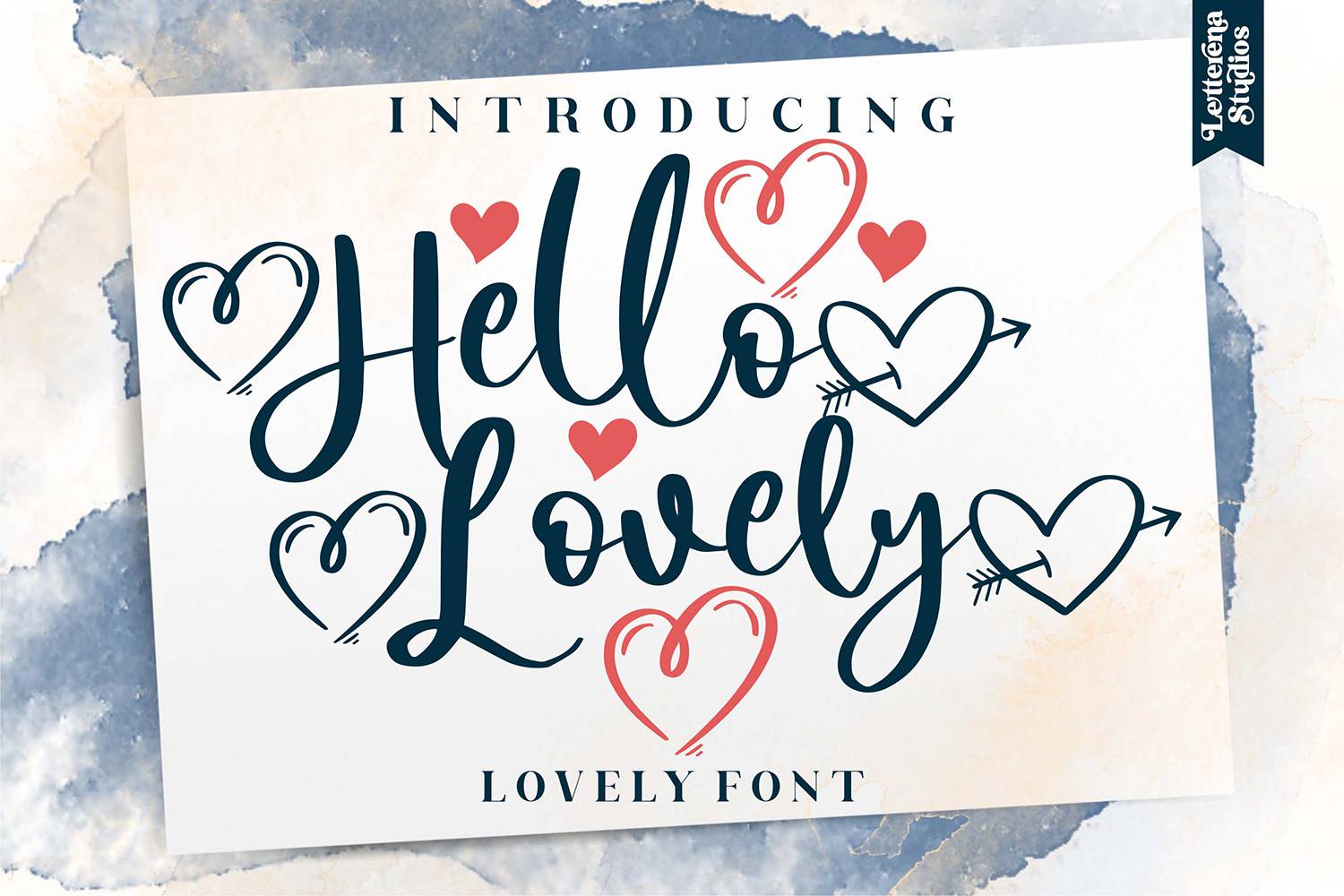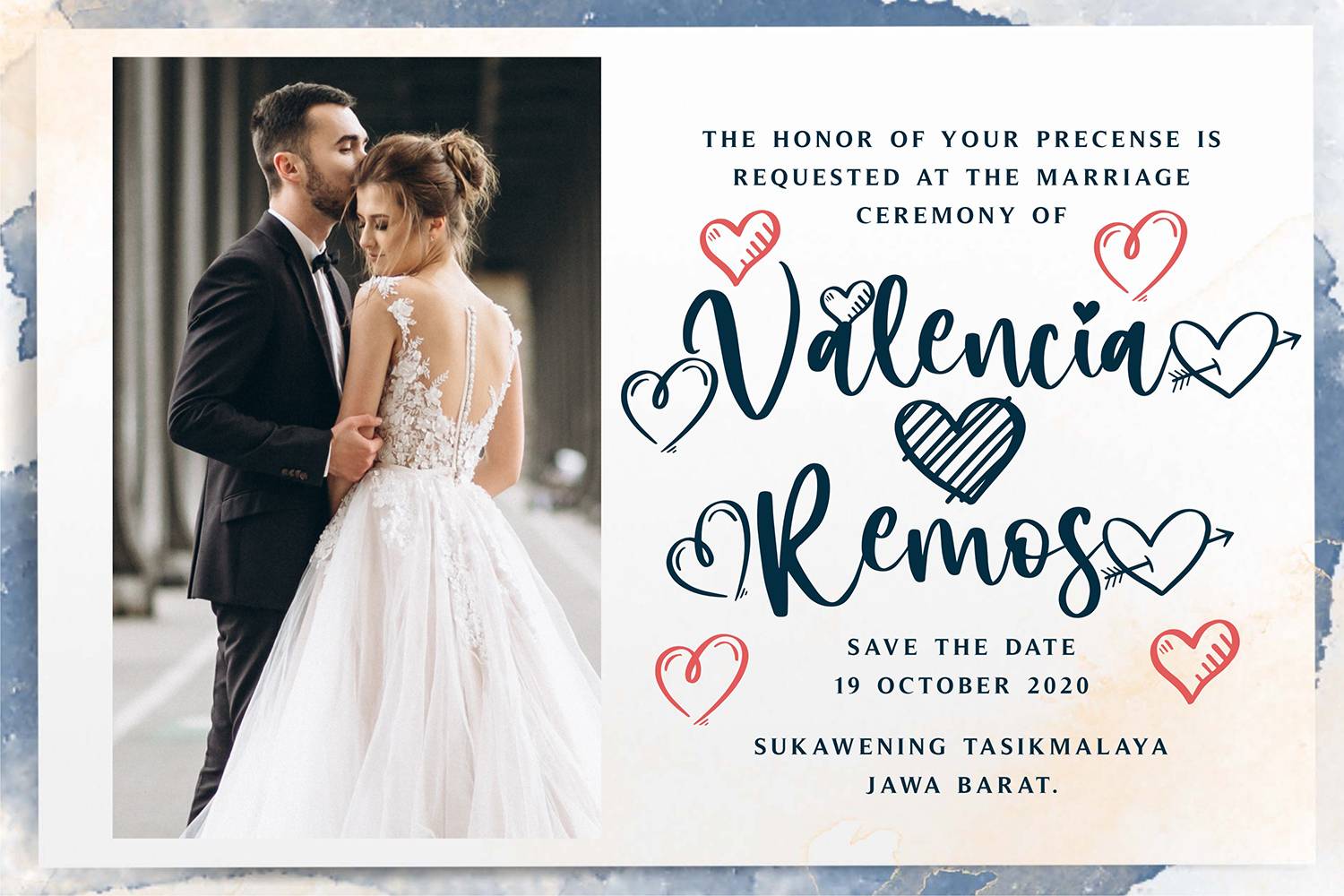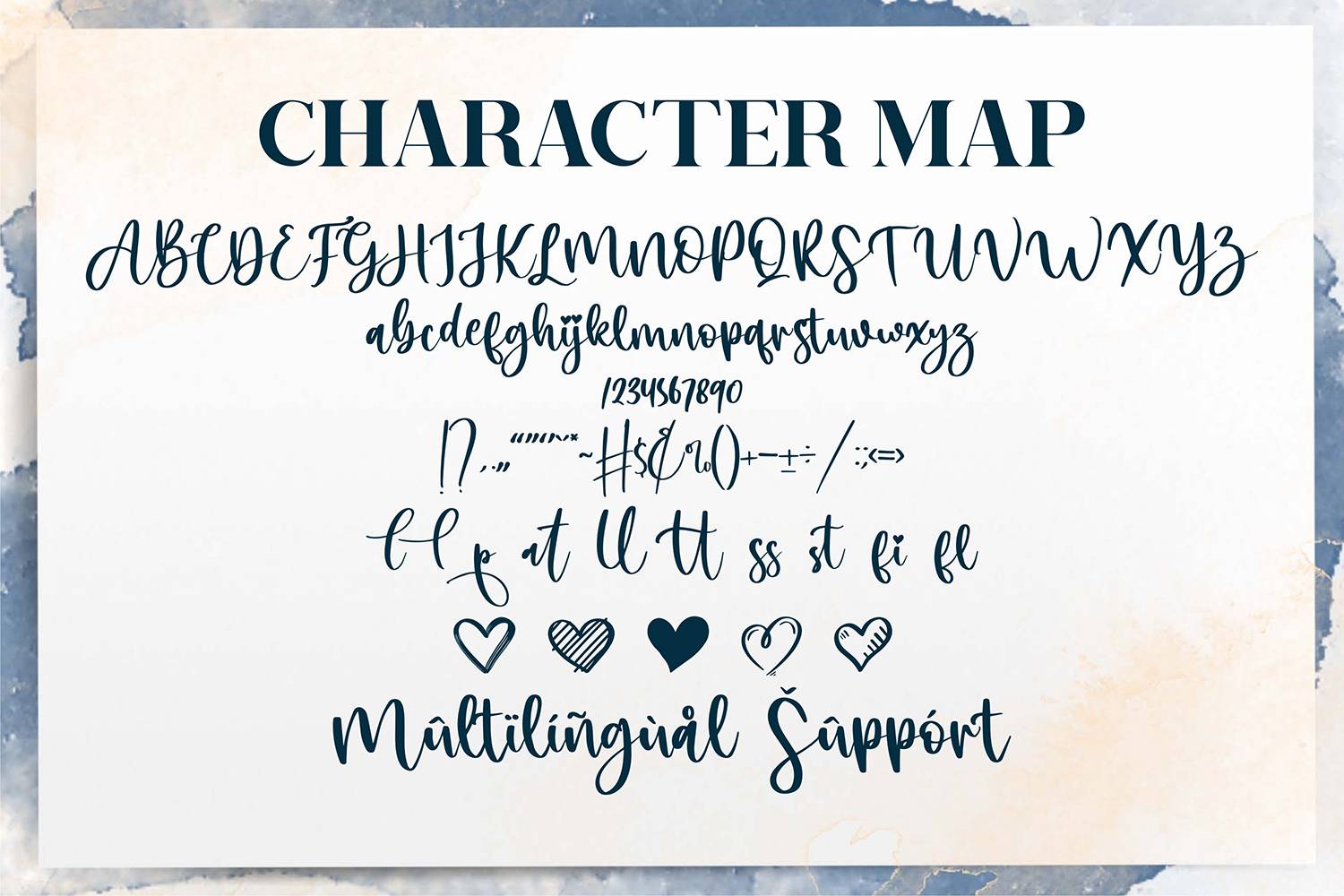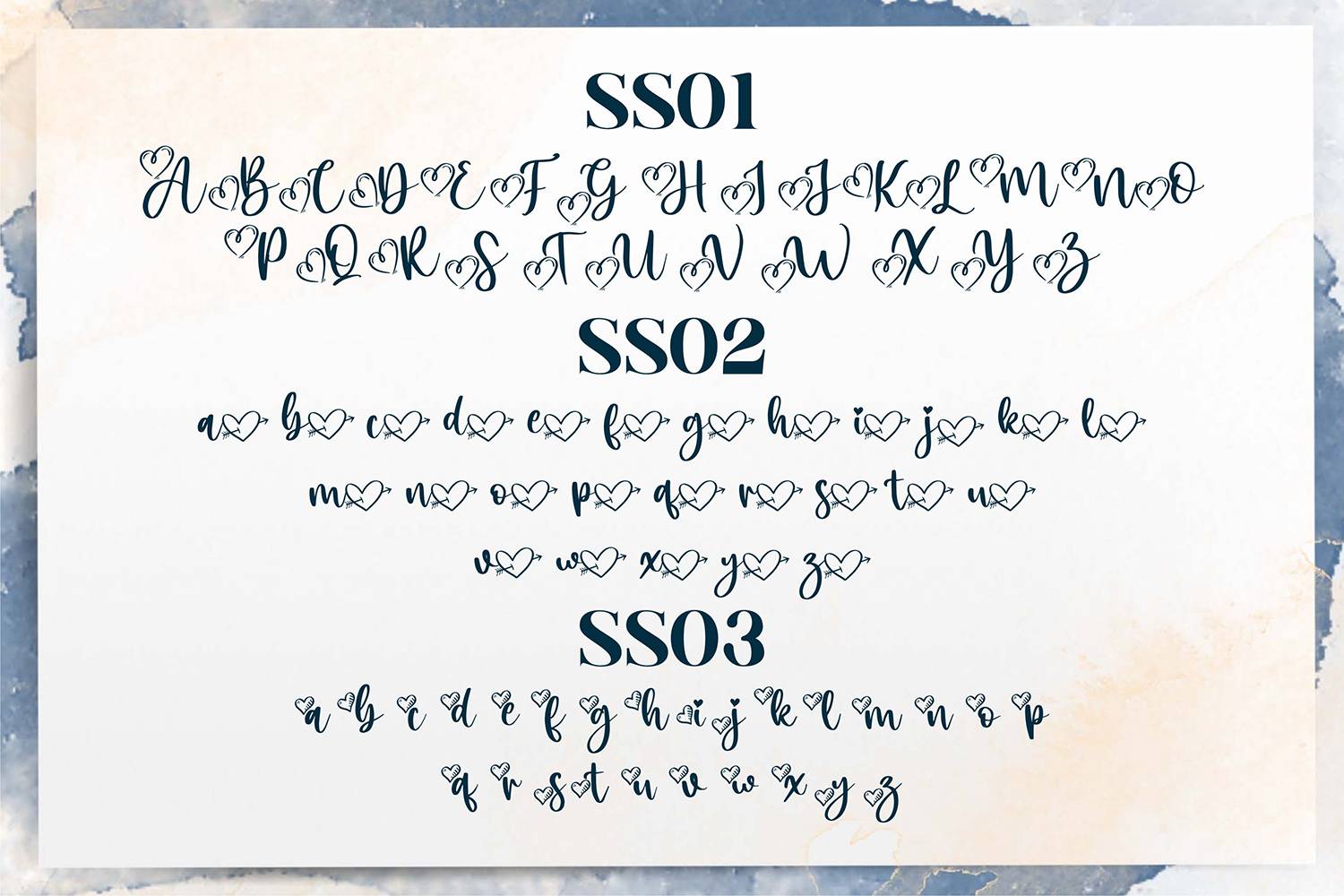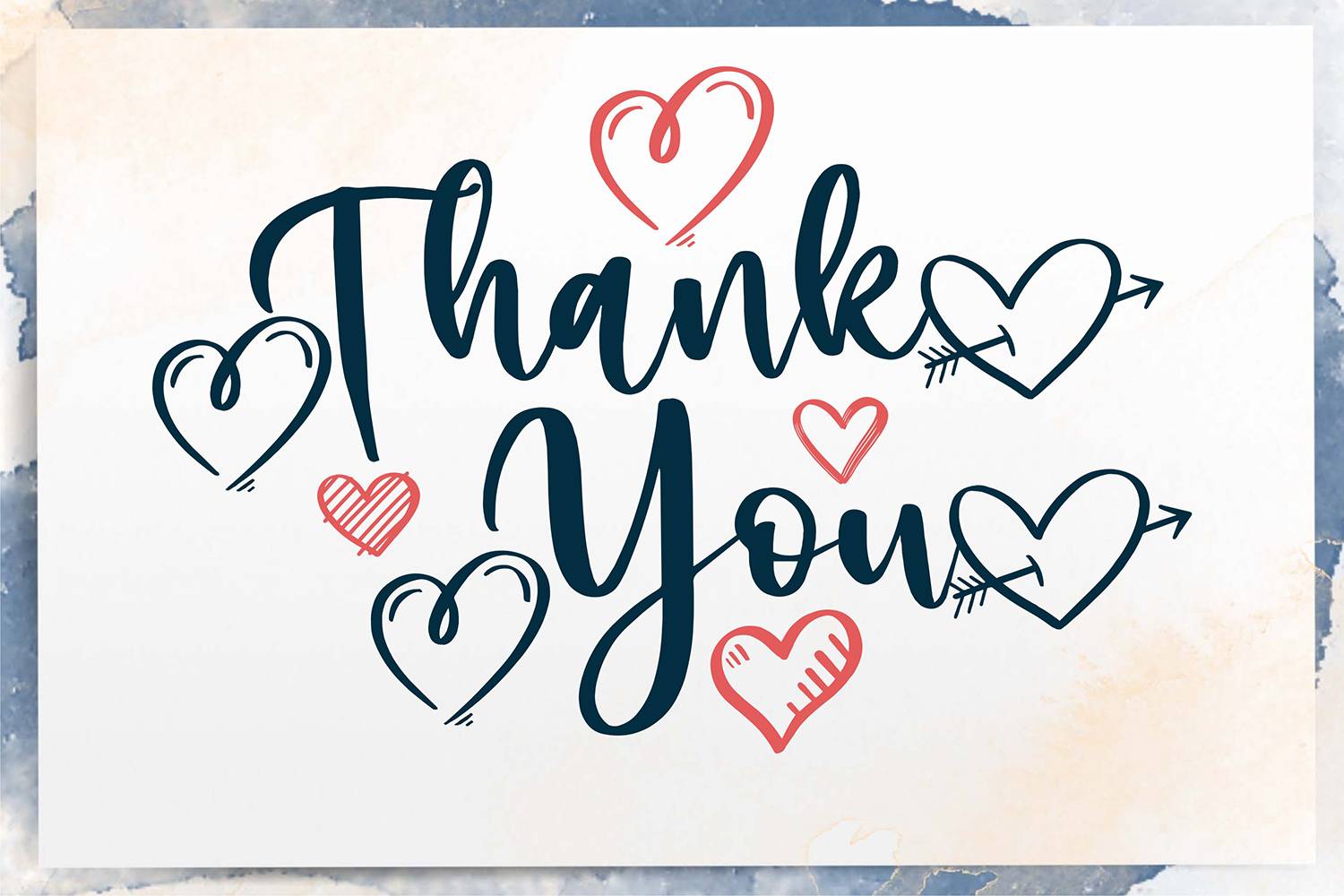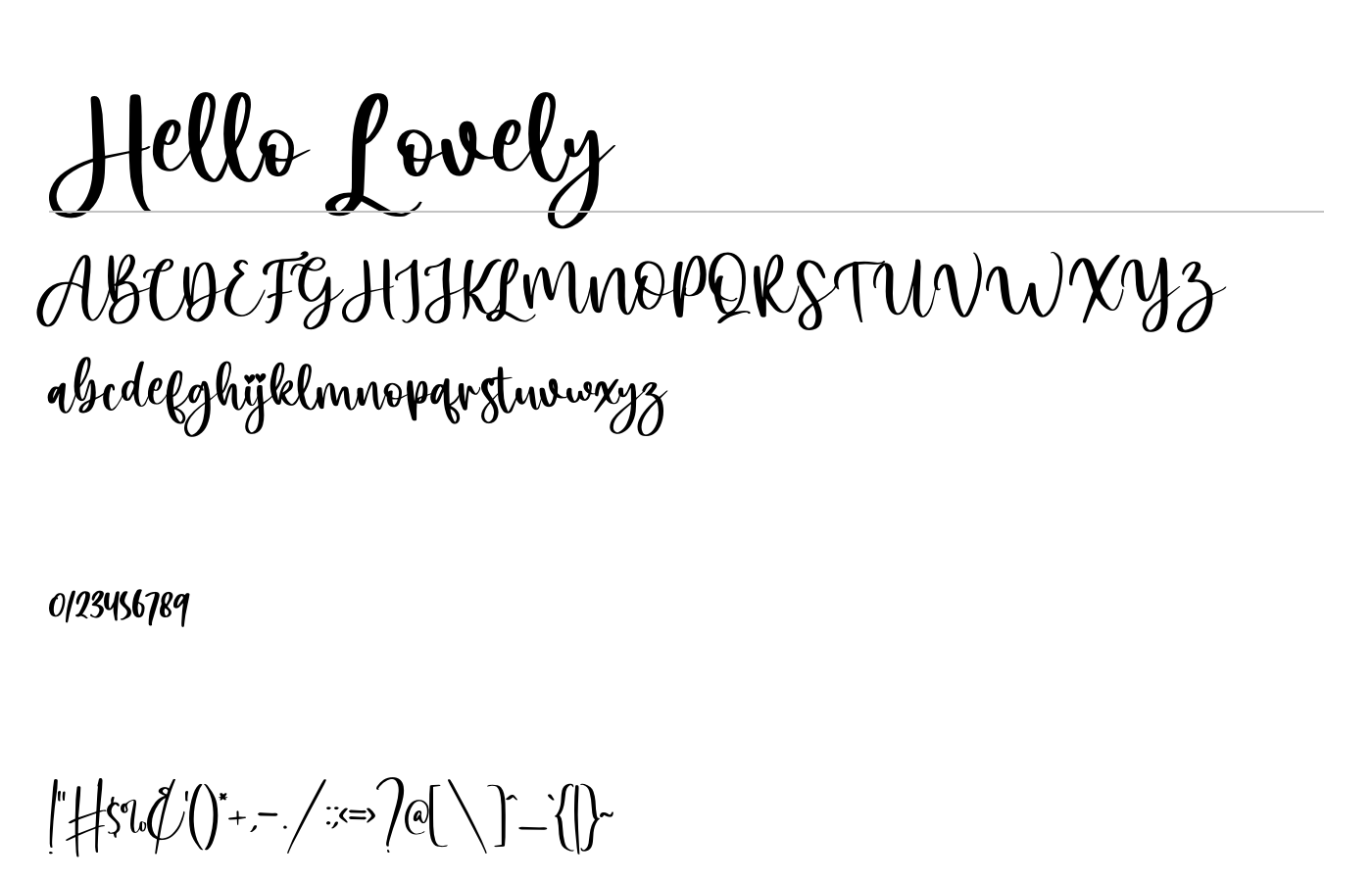
Hello Lovely is a charming and elegant script font featuring fluid, hand-drawn letterforms with a lively, playful touch. Its delicate, flowing strokes and varied line thickness make it perfect for adding a personal, warm feel to designs, especially for invitations, branding, and creative projects that seek a friendly yet stylish atmosphere. This font works beautifully in headlines and decorative uses where a handcrafted, inviting look is desired.
Hello Lovely Font
About Hello Lovely Font
| Font family | Hello Lovely Font |